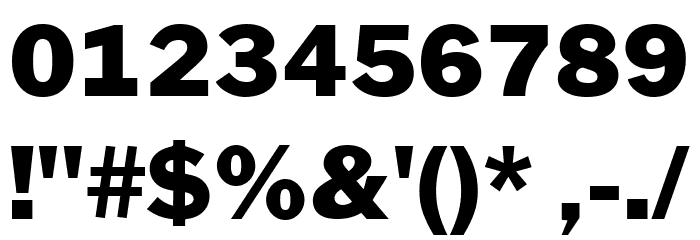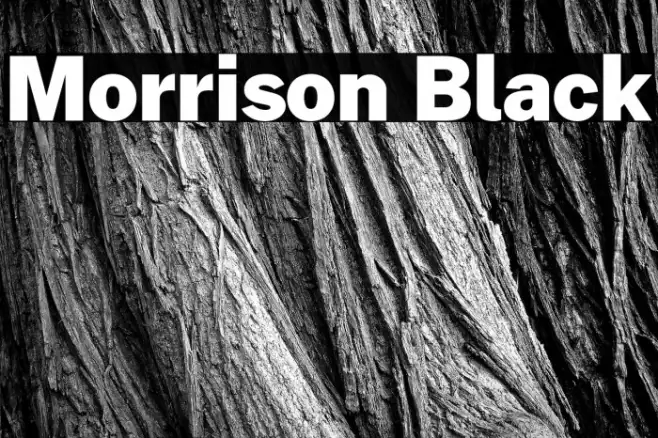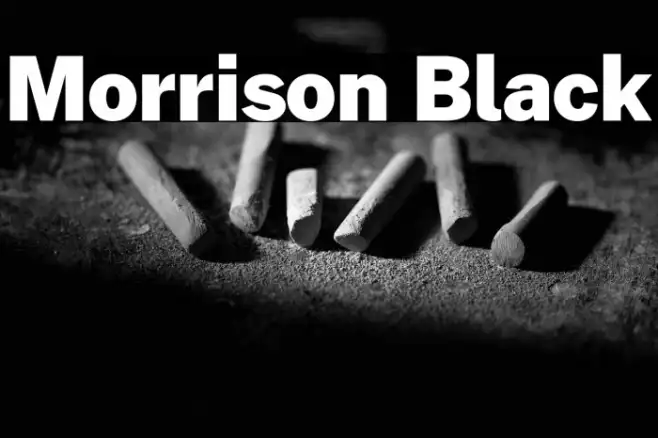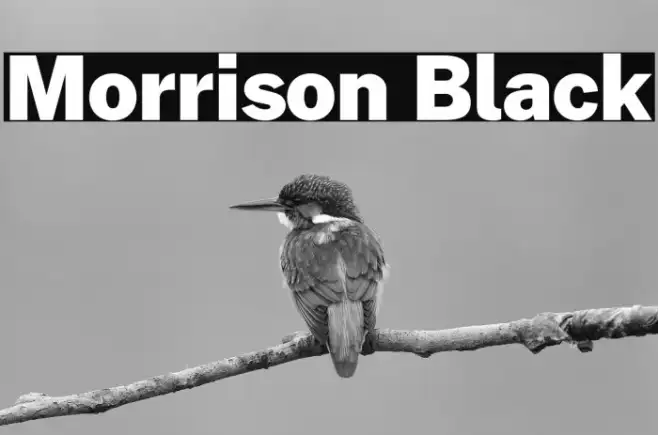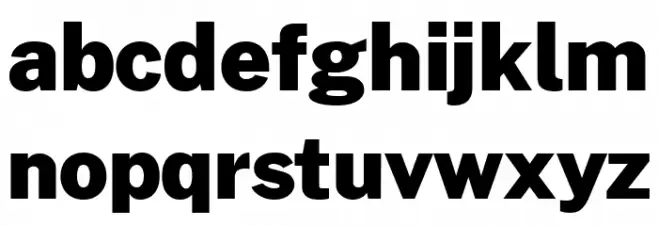
Morrison Black Font
This typeface is characterized by its bold and impactful presence, featuring thick, uniform strokes that convey strength and clarity. The uppercase and lowercase letters maintain a consistent weight, providing a sense of balance and stability. The numerals are equally robust, ensuring legibility across various applications. Special characters are designed with the same boldness, making them stand out effectively. The overall design is clean and straightforward, with no unnecessary embellishments, making it suitable for modern and professional uses.
A bold, impactful typeface with uniform strokes and strong presence.
- Proposed Projects: Ideal for branding, advertising, headlines, and signage where a strong, clear message is needed.
- Use Case: Headlines, Logos, Advertising